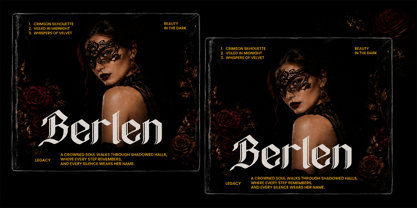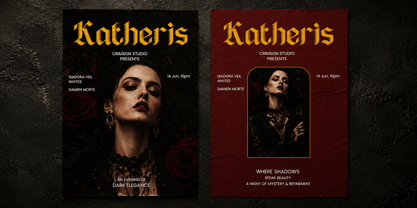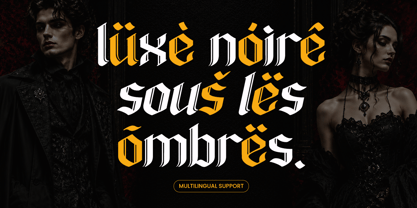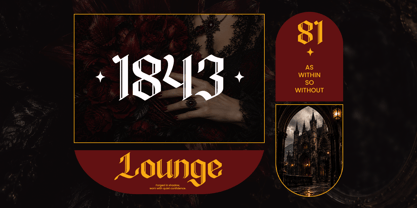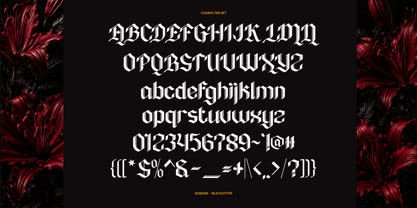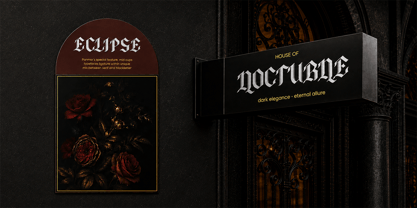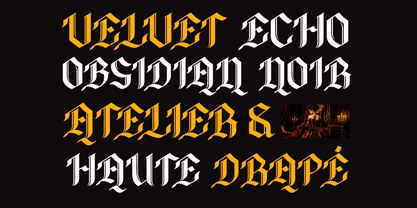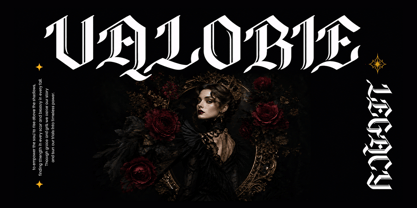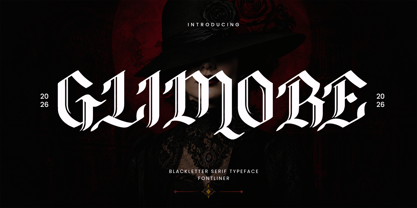
Glimore
La familia tipográfica Glimore fue diseñada por Ghina Luthfiarieska y publicada por Font Liner. Glimore contiene 2 estilos y opciones de paquete familiar. Más información sobre esta familia
Glimore is an elegant Gothic Blackletter font that blends medieval typography with a sophisticated dark-luxury aesthetic. Its sharp, ornate letterforms and dramatic proportions create a distinctive visual identity that instantly adds character to headlines, logos, and display compositions.
Designed for bold and expressive projects, Glimore is perfect for luxury branding, fashion editorials, gothic posters, album covers, music artwork, wedding invitations, packaging, labels, merchandise, and creative campaigns. Its ornamental details work beautifully in both classic compositions and contemporary visual identities.
Whether you're creating a premium fashion identity, medieval-inspired branding, dark editorial artwork, elegant stationery, or atmospheric music graphics, Glimore brings a timeless blackletter character with a refined and powerful presence.
• Regular and Italic
• Uppercase and Lowercase
• Number, Symbol, and Punctuation
• Multilingual Support